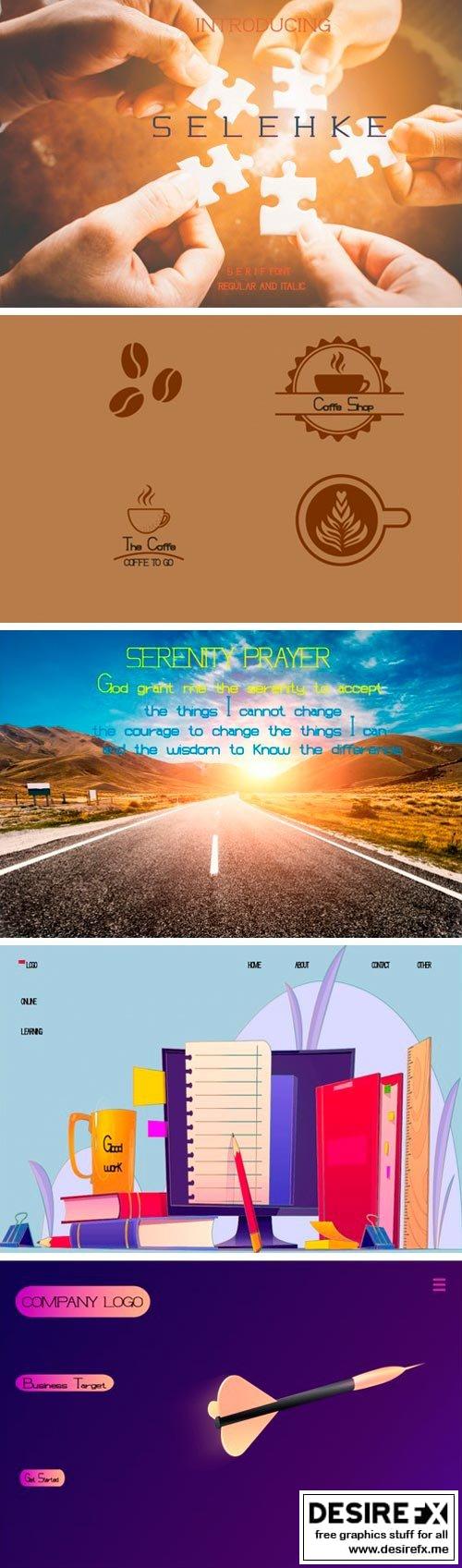
Selehkan Font
Selehkan Font is a casual retro from the san serif font family that carries a serif theme, this font is designed with care so that it can produce a blend of letters and become a sweet and elegant word but still natural.